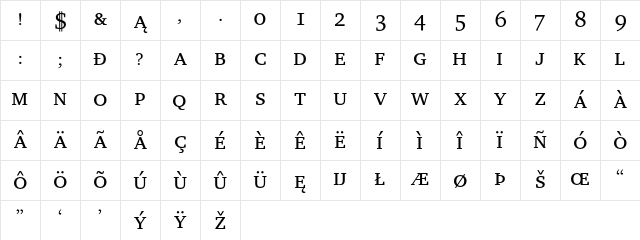
Complete ITC Charter Small Cap glyph index. Displaying only characters natively supported by ITC Charter Small Cap font.
ITC Charter is a composed and adaptable typeface that performs quietly and consistently across a wide range of design contexts.